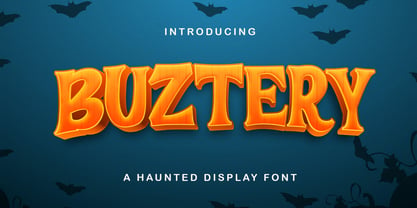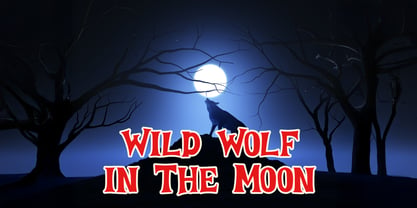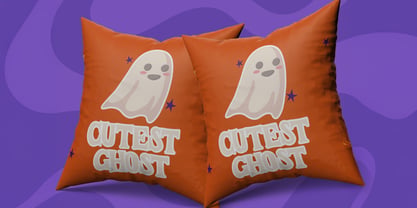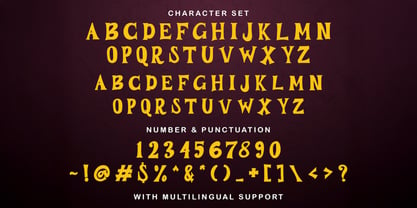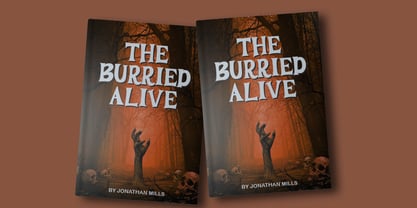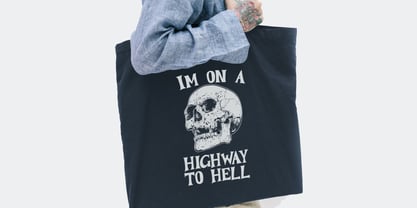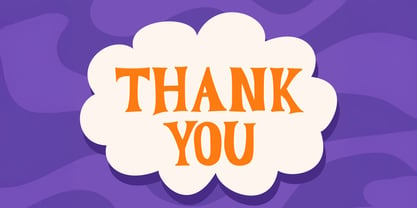
The Buztery Font Family was designed by Virgiawan Listanto and published by Stringlabs Creative Studio. Buztery contains 1 styles. More about this family
Step into the eerie with BUSTERY, a chilling haunted display font designed to send shivers down your spine. With jagged edges and ghostly curves, BUSTERY captures the perfect mix of horror and playfulness, making it ideal for all your spooky-season designs.
Designers: Virgiawan Listanto
Foundry: Stringlabs Creative Studio
Buztery